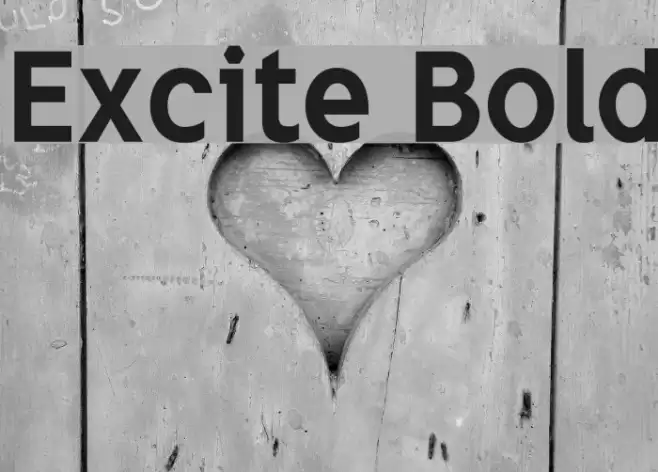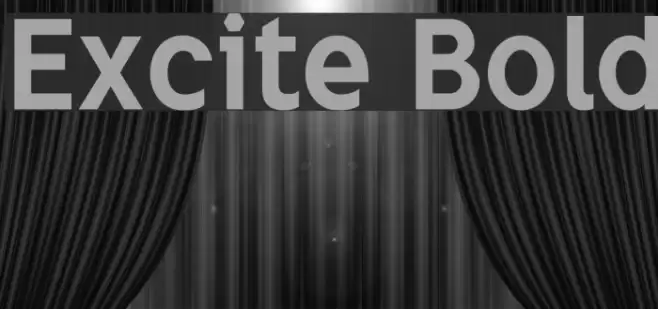
Excite Bold Font
Excite Bold Description
This font features a bold and assertive style, characterized by thick strokes and a strong presence. The uppercase letters are uniform and geometric, while the lowercase letters maintain a consistent weight, providing a harmonious balance. The numerals are clear and easy to read, making them suitable for various applications. The special characters are well-defined, adding versatility to the font's usage. Overall, this font conveys a modern and professional aesthetic, ideal for making a bold statement.
A bold, modern font with strong geometric shapes and clear readability from Uncategorized fonts.
- Proposed Projects: Ideal for branding, advertising, headlines, and any project requiring a strong visual impact.
- Use Case: Headlines, Logos, Advertising